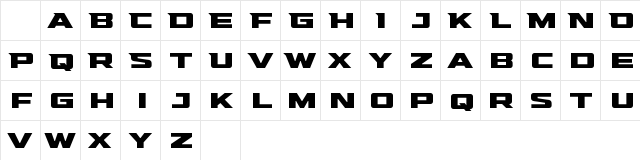
Hunterra is a composed and adaptable typeface that performs quietly and consistently across a wide range of design contexts.
Pro Tip: Use Hunterra in both headline and body roles to test its range before committing to a single application.